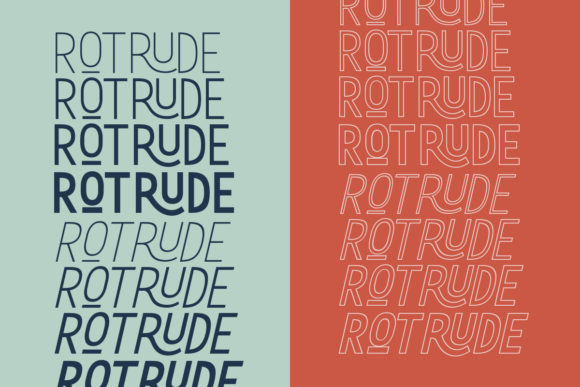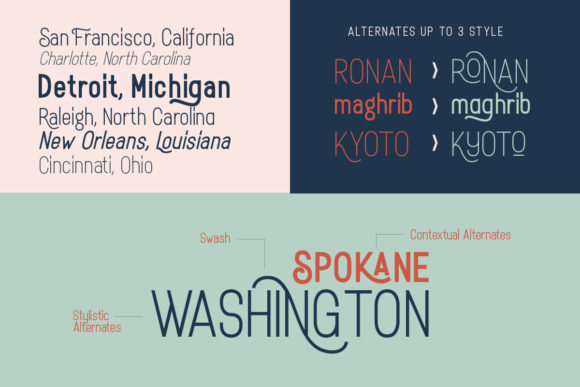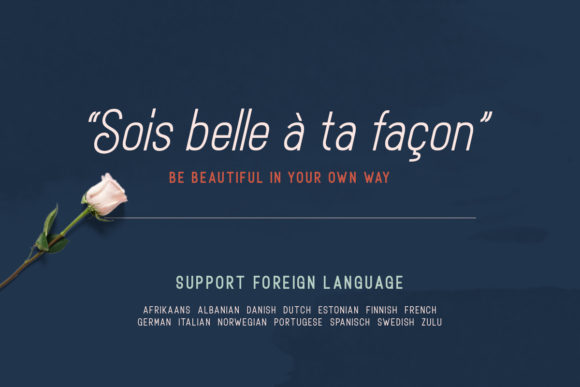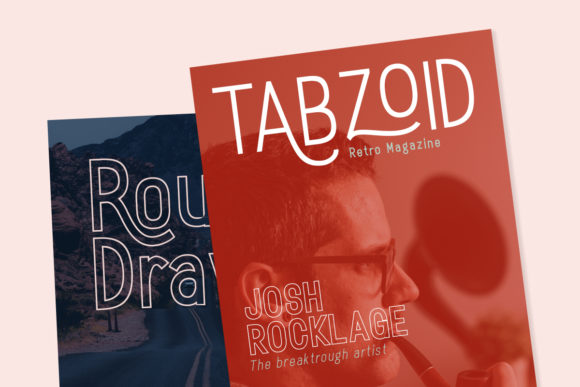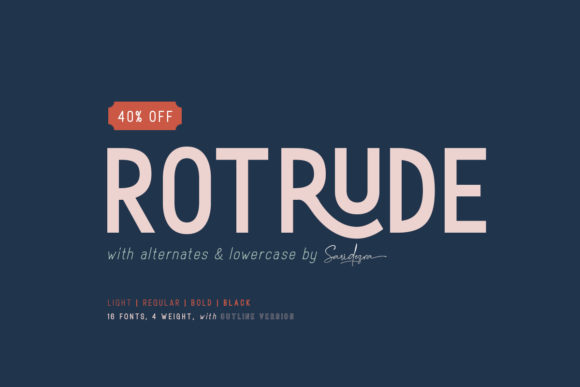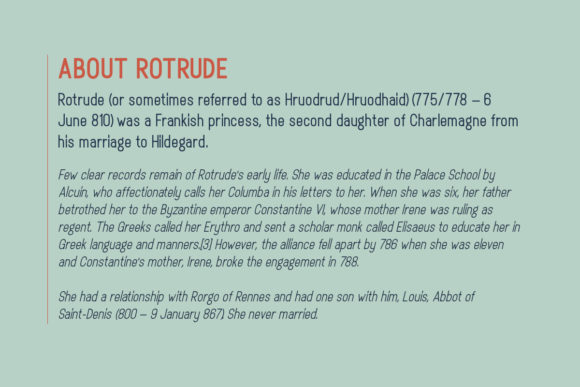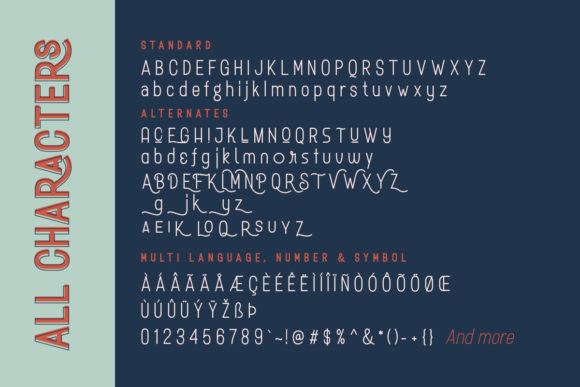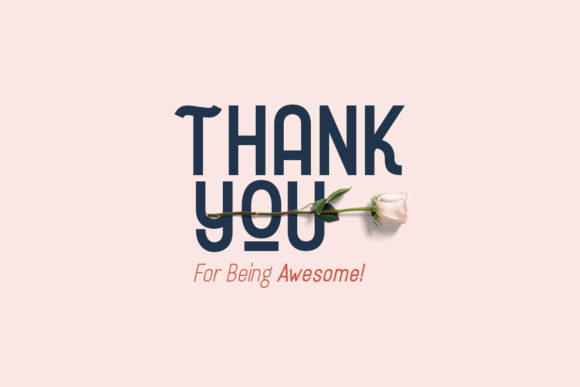
The Rotrude is a casual and modern sans family. It includes 16 styles which gives you the opportunity to create an unique design, every time you use it.
It can be used for titles, logos, quotes, and much more!
The Rotrude is a casual and modern sans family. It includes 16 styles which gives you the opportunity to create an unique design, every time you use it.
It can be used for titles, logos, quotes, and much more!